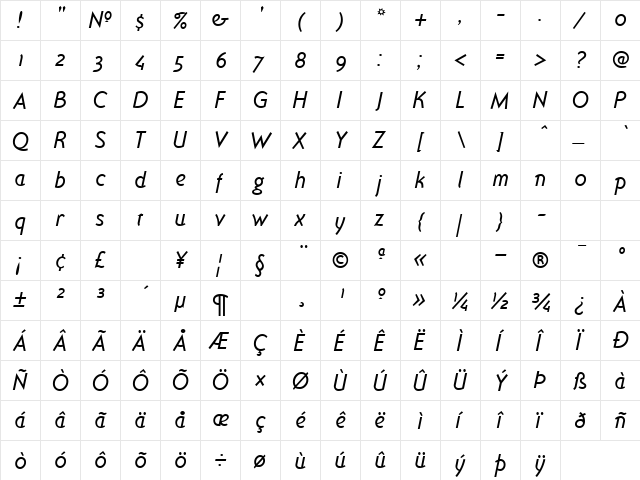
OttomatItalic Regular
Design Context for OttomatItalic Typeface
OttomatItalic is a composed and adaptable typeface that performs quietly and consistently across a wide range of design contexts. The dynamic lean of this cut emphasises speed and emphasis in any layout.
Pro Tip: Use OttomatItalic for emphasis, pull quotes, and subheadings where its slanted energy can add rhythm to the layout.